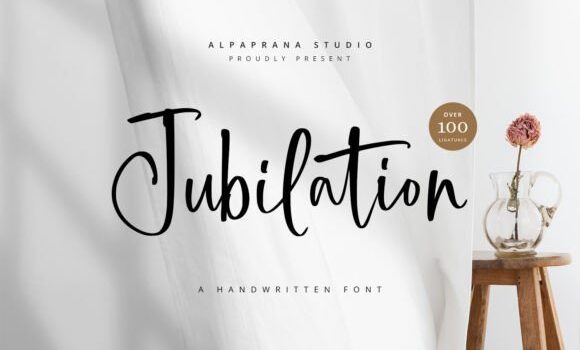
Jubilation Font – Free Download Introduction to Jubilation Font Jubilation is a modern and natural-looking signature script font. 📸 Preview Gallery 6 images 📌 Product Name Jubilation Font 👤 Author alpapranastudio 📂 Category Explore ⬇️ Download Jubilation Font FREE Free